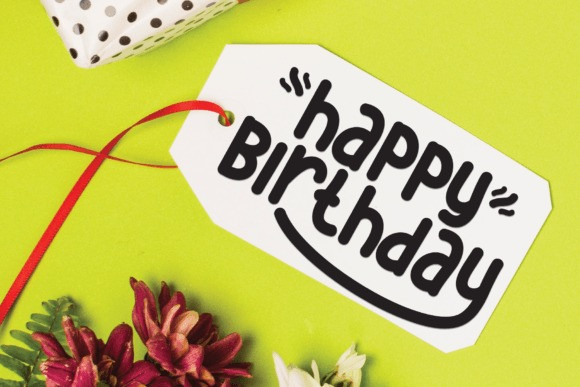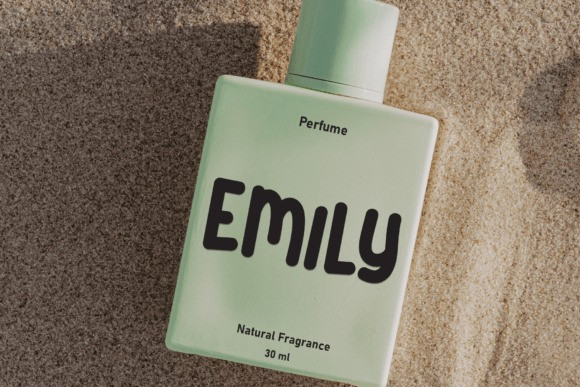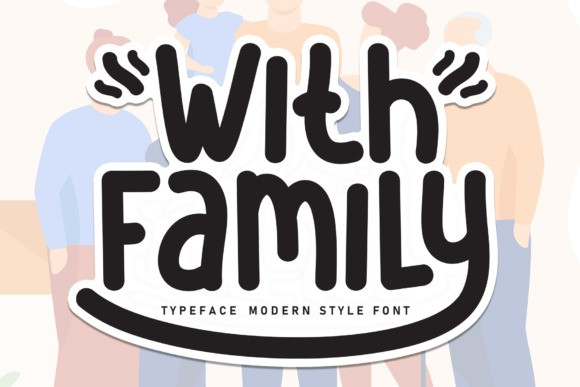
With Family Font
With Family font is a contemporary script typeface that blends elegance with versatility. Featuring a collection of alternate characters, it offers a personalized touch to your designs. Whether used for invitations, branding, or creative projects, With Family adds a modern yet inviting feel, creating a warm sense of connection in every letter.